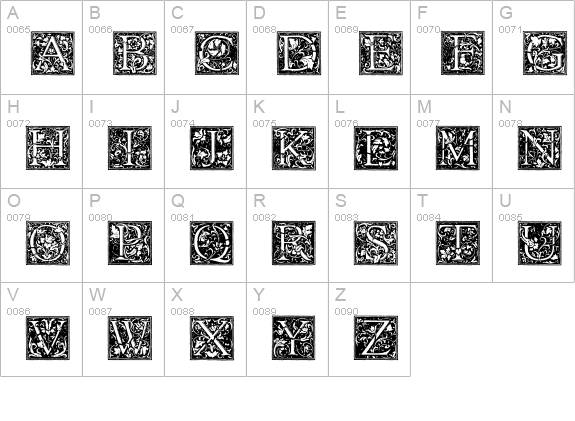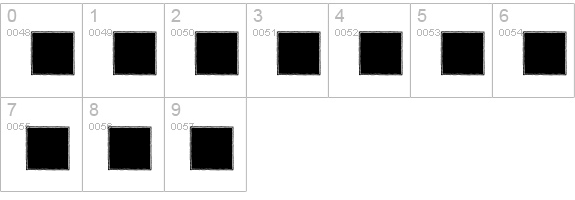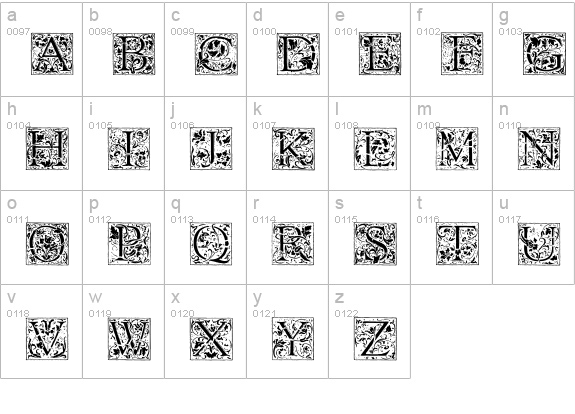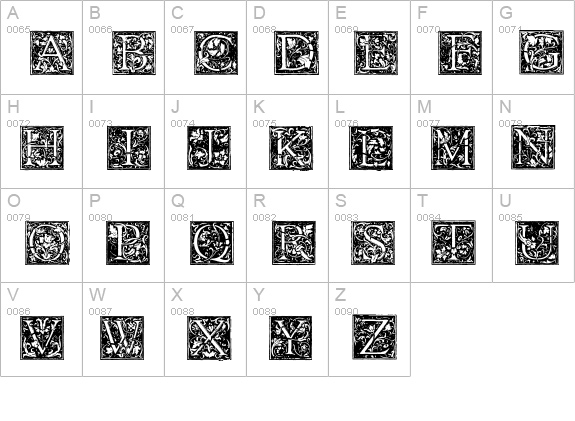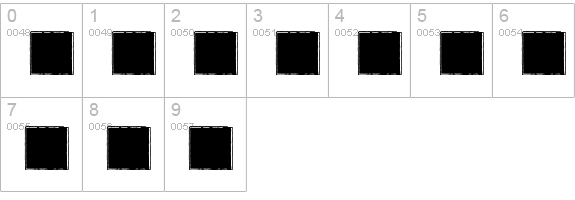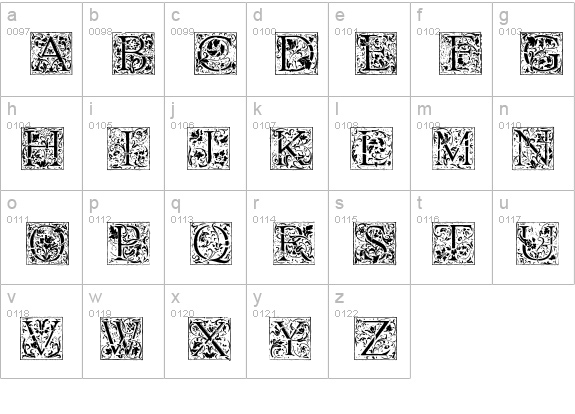
Florana_Initials Font Details
Florana_Initials font is a stunning and elegant typeface that exudes sophistication and charm. Its intricate letterforms and delicate flourishes give off a sense of timeless beauty. Perfect for adding a touch of refinement to any design project, whether it be invitations, branding, or editorial layouts. The best part? Florana_Initials font is completely free to download at FontsMarket.com. Embrace the beauty of this exquisite font and elevate your designs to new heights with its graceful aesthetic. Let Florana_Initials font be the perfect choice for your next creative endeavor.